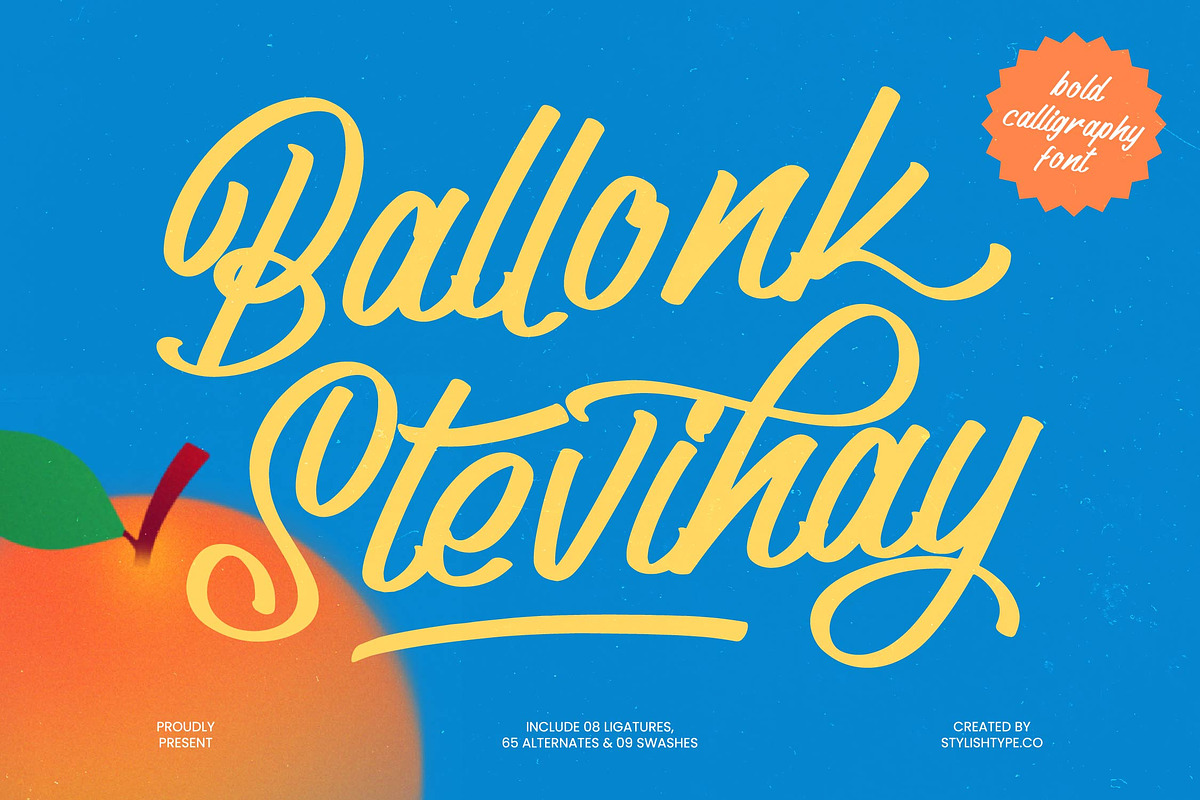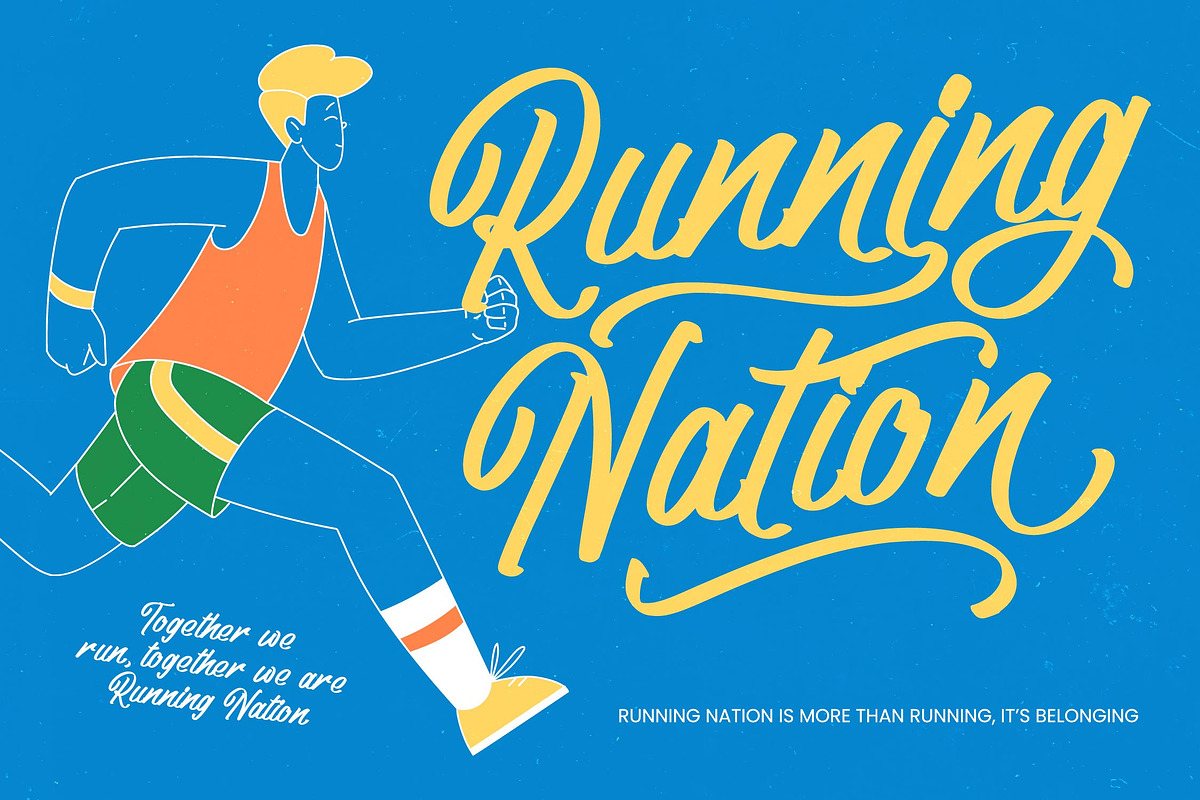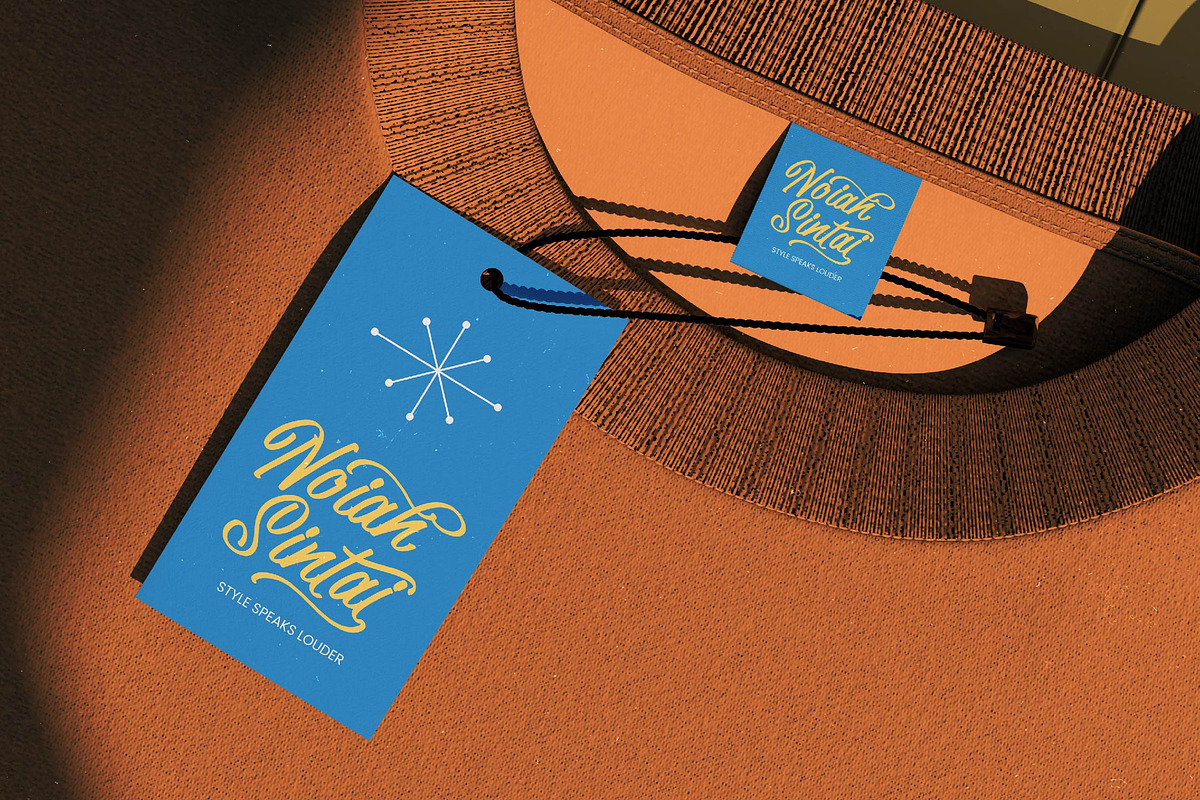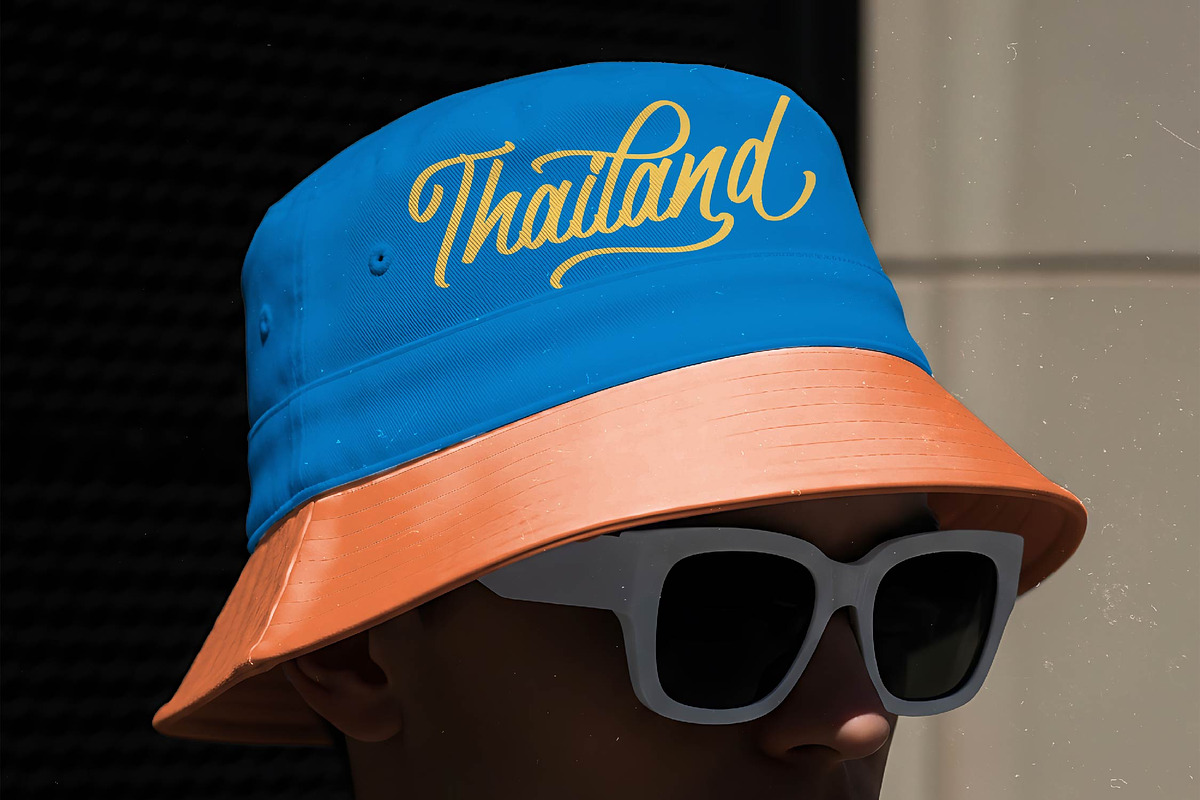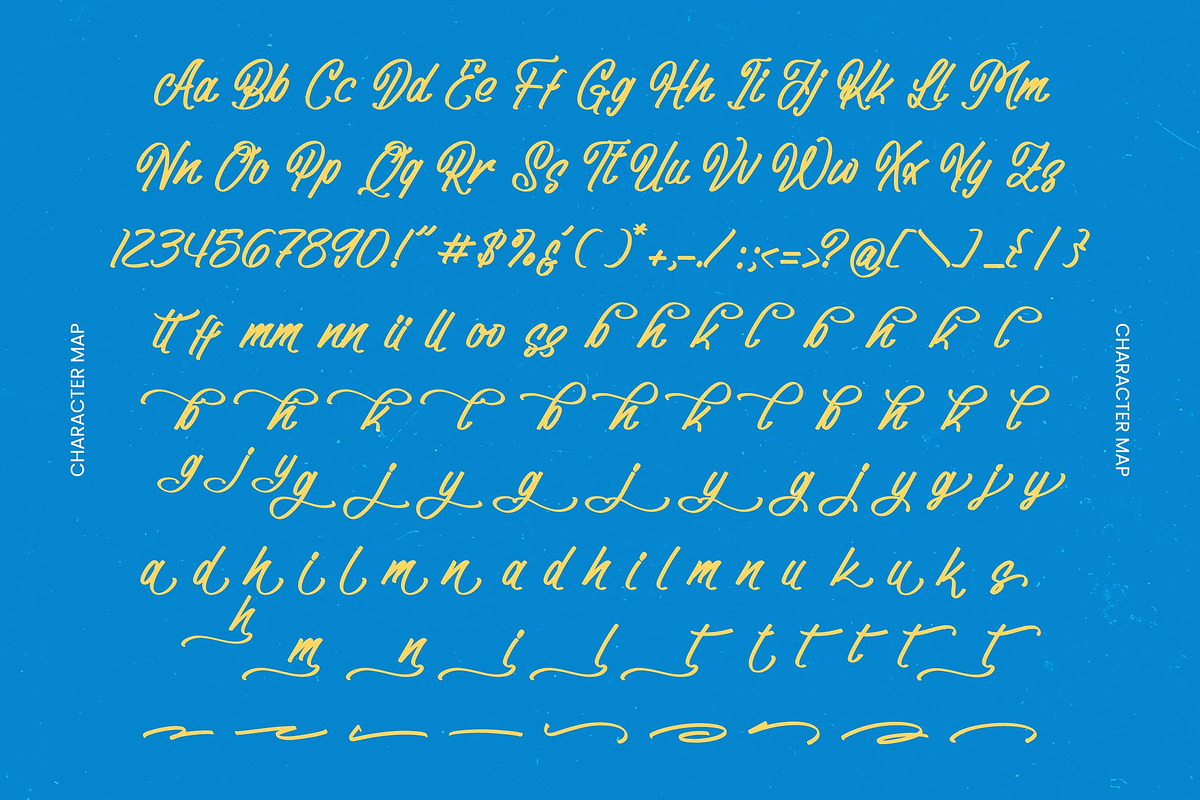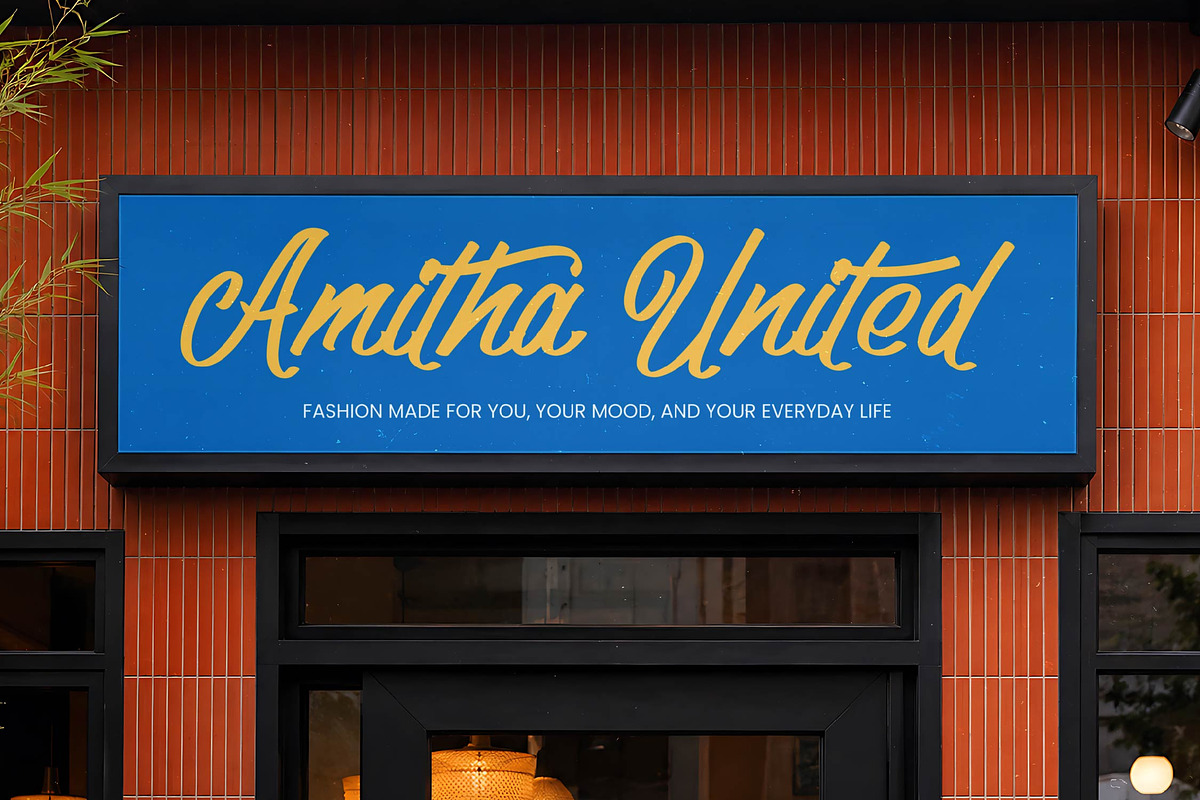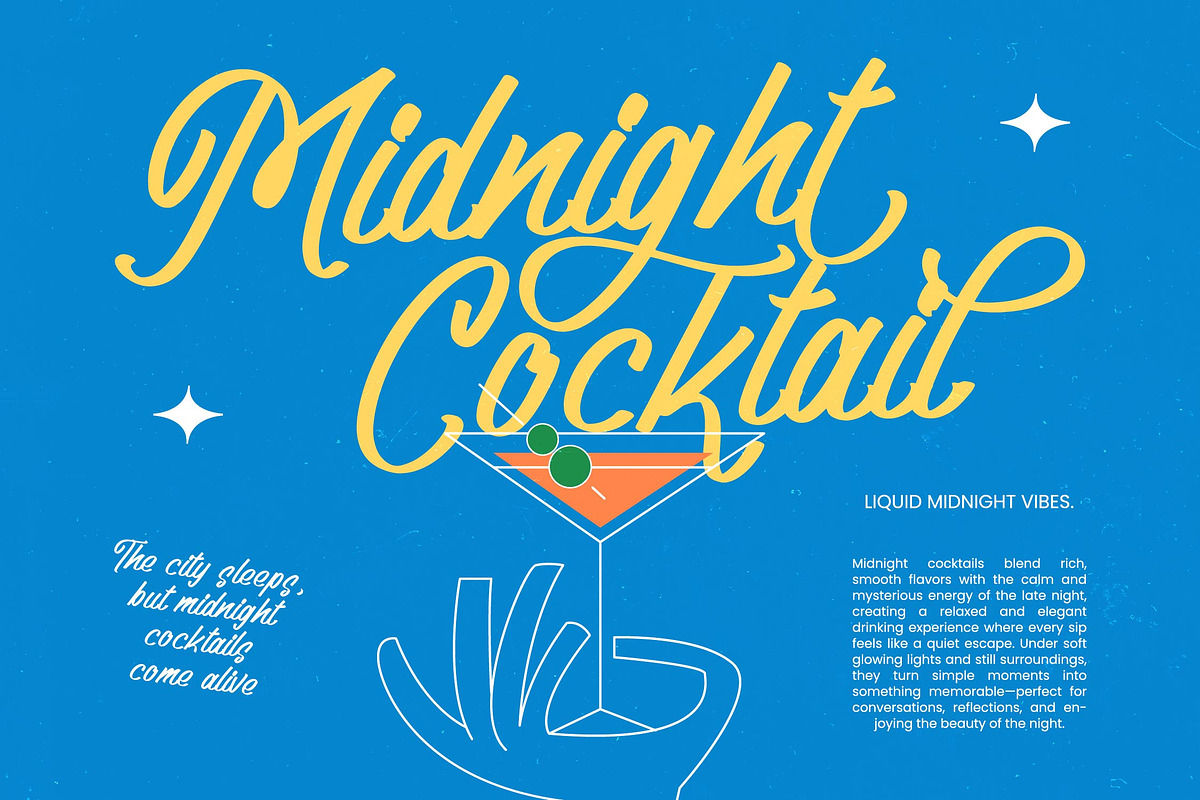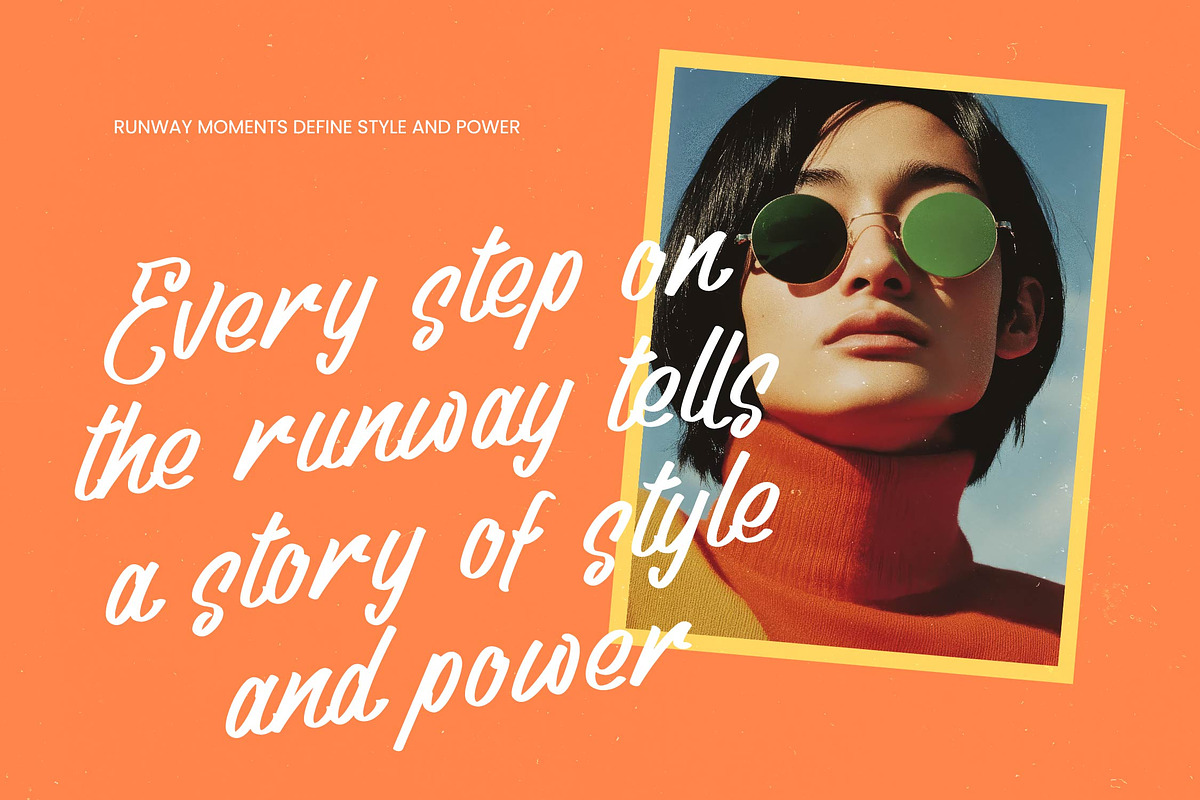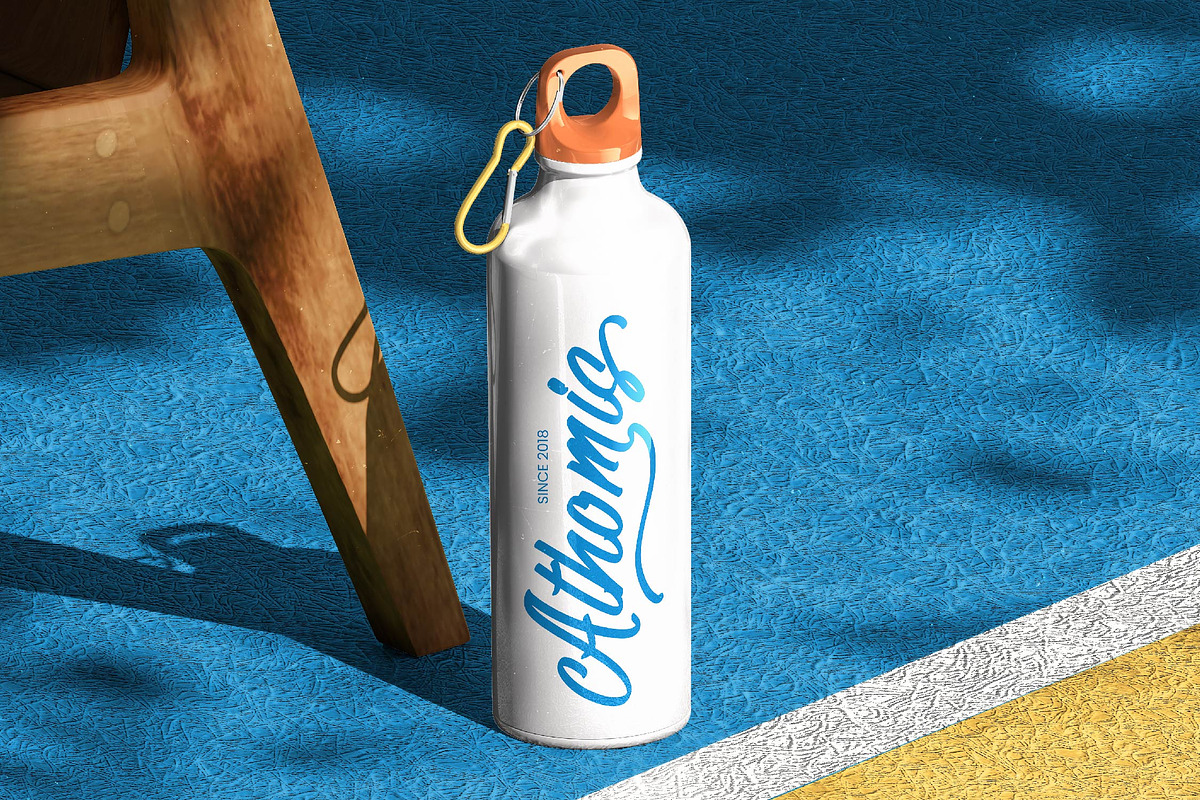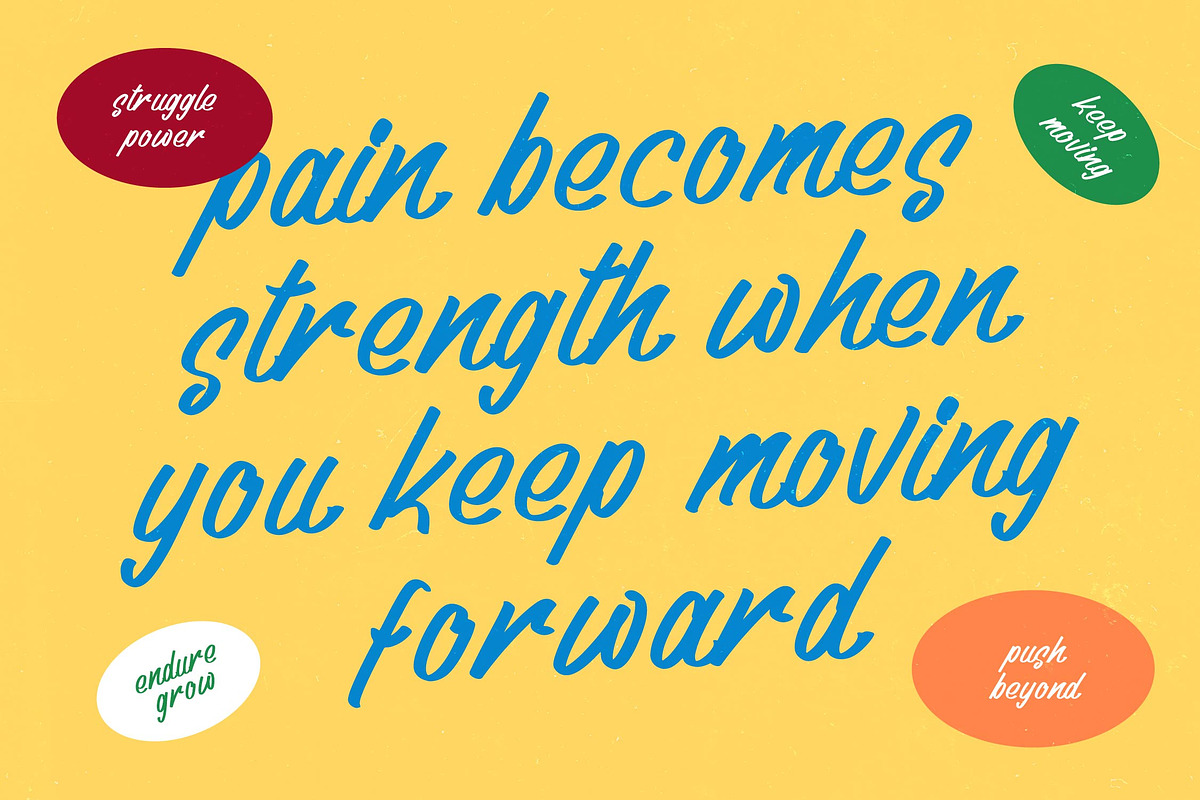
Ballonk Stevihay Bold Calligraphy
Ballonk Stevihay - Bold Calligraphy Font , Experience the perfect blend of energy and sophistication with Ballonk Stevihay - Bold Calligraphy Font. This expressive script typeface captures the essence of handcrafted elegance with its fluid strokes and confident weight. Designed to command attention, Ballonk Stevihay - Bold Calligraphy Font offers a bold calligraphy style that bridges the gap between casual charm and professional polish, making it an essential tool for designers seeking a unique visual identity.
Expand your creative horizons with a typeface built for the modern designer. With its extensive multilingual support, Ballonk Stevihay - Bold Calligraphy Font adapts seamlessly across global markets, making it incredibly versatile for international projects. Beyond its linguistic reach, Ballonk Stevihay - Bold Calligraphy Font includes a rich collection of ligatures, alternates, and swashes, allowing you to customize every word and achieve a truly bespoke aesthetic in every layout.
Unlock a world of possibilities across diverse design sectors. Ballonk Stevihay - Bold Calligraphy Font is the ideal application for luxury branding, premium packaging, and dynamic editorial design. It is perfect for creating standout logo designs, lifestyle apparel, and high-impact social media graphics that require a signature touch. Whether you are working on event invitations or beverage labels, this font ensures your message is delivered with unmatched personality.
Invest in a typeface that defines excellence and elevates your brand’s presence. Ballonk Stevihay - Bold Calligraphy Font is more than just a font; it is a comprehensive design solution tailored for those who value professional quality and artistic flair. By choosing Ballonk Stevihay - Bold Calligraphy Font, you are opting for a high-contrast script that guarantees readability while maintaining a playful yet authoritative tone for all your commercial projects.
\- Uppercase and Lowercase
\- Numerals
\- Punctuations (OpenType Standard)
\- Accents (Multilingual Characters)
\- Ligatures and Alternative Style Stylistic Set